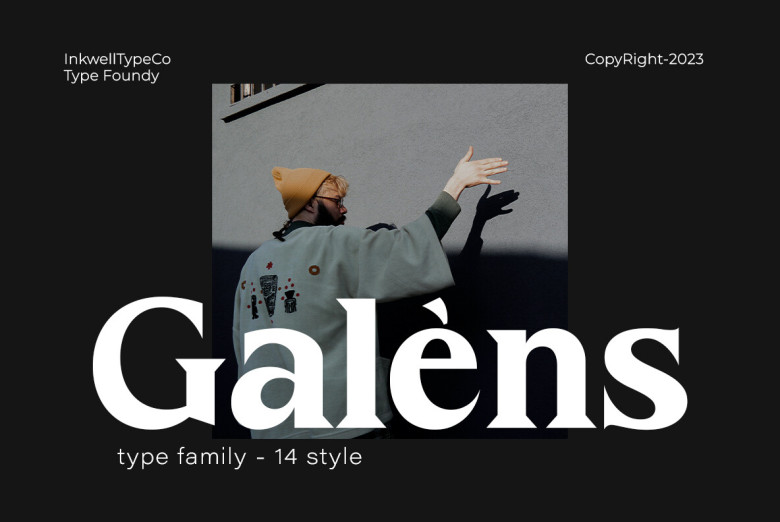
Galens Font
Galens Font Family is an expansive collection that artfully blends different styles and weights, from modern and sleek to vibrant and bold. Each Galens family member works harmoniously together for seamless typographic palettes on your design projects.
Boasting sleek lines, modern designs, and an abundance of options that allow users to communicate clearly across applications while remaining visually appealing; take advantage of Galens to capitalize on typography-design synergies through Galens which combines unity with variety in every letter!
Galens Serif Font Family